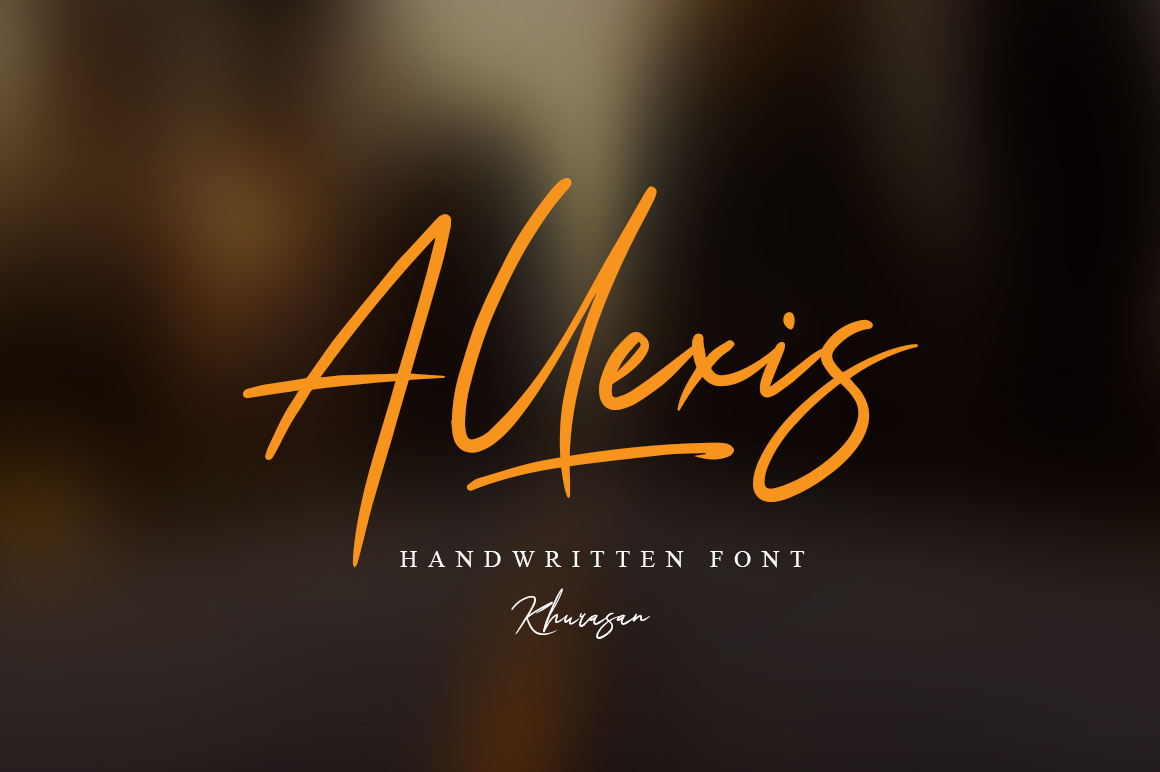
The Quest for the Perfect Font: How Allexis Font Stole My Heart
I still remember the design project that led me to discover Allexis Font. I was working on a branding project for a boutique client, and I was on a mission to find the perfect font that would capture the essence of her elegant yet casual brand. I scoured through font libraries, tried out countless combinations, but nothing seemed quite right. That was until I stumbled upon Allexis Font. Its gorgeous script letters and effortless elegance won me over, and I knew I had found the one.
An Honest Review of Allexis Font
So, what makes Allexis Font so special? Let’s dive into the good stuff and a few quirks I’ve discovered.
- ✨ Casual Elegance: Allexis Font exudes a sense of effortless sophistication, making it perfect for projects that need a touch of refinement.
- ✅ Authentic Vibe: This font is great for giving your branding an authentic, hand-written feel that’s hard to achieve with more formal fonts.
- 💫 Versatility: Allexis Font works beautifully as a logotype, in editorials, and even in social media graphics.
While Allexis Font is an amazing addition to any design project, there are a few things to keep in mind:
- ⚠️ Legibility at Small Sizes: Like many script fonts, Allexis can get a bit tricky to read at very small sizes. Make sure to test it out at different scales to ensure it works for your project.
- 🤔 Overuse of Swashes: While the swashes in Allexis are beautiful, overusing them can make your text look cluttered. Use them sparingly to add a touch of elegance.
The Story Behind Allexis Font
While the origins of Allexis Font are shrouded in mystery, it’s clear that the designer had a passion for elegant, hand-written scripts. The font’s effortless elegance and authentic vibe suggest a designer who was aiming to create a font that felt both refined and approachable.
| Font Name | Allexis Font |
| Author | Khurasan |
Q: What type of projects is Allexis Font best suited for?
A: Allexis Font is perfect for projects that need a touch of casual elegance, such as branding, editorials, and social media graphics.
Q: Does Allexis Font support OpenType features?
A: Yes, Allexis Font supports OpenType features, including swashes and stylistic alternates.